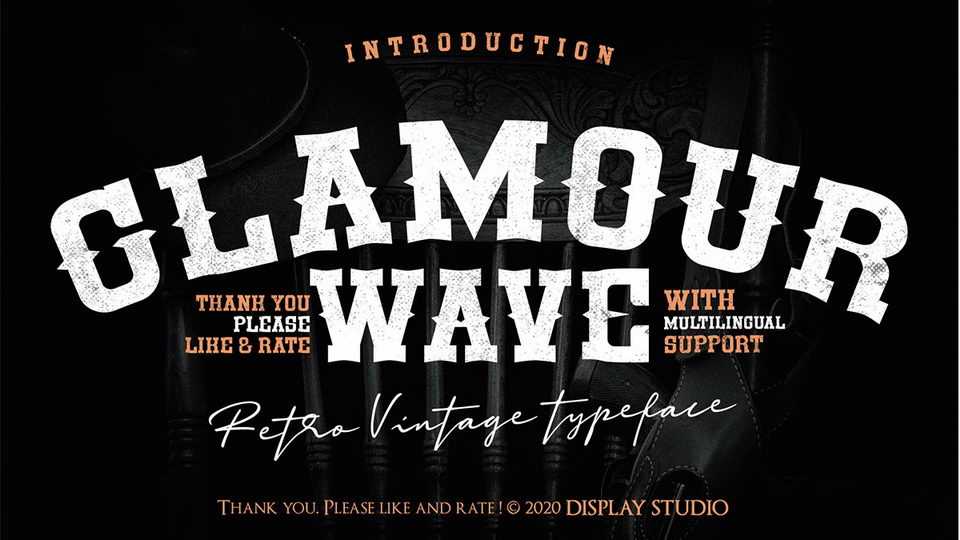
Download Glamour Wave font, a bold vintage display typeface for logos and posters that would further enhance the aestethical aspect of your work.
Designer: Display Studio